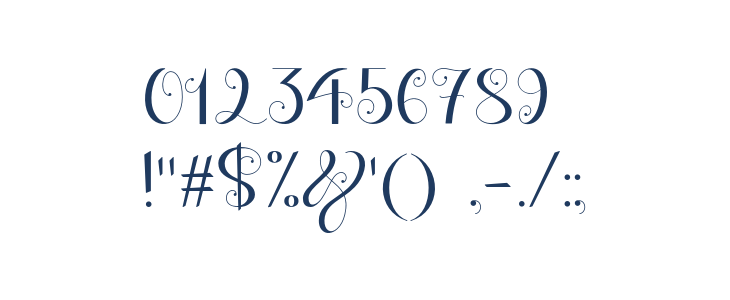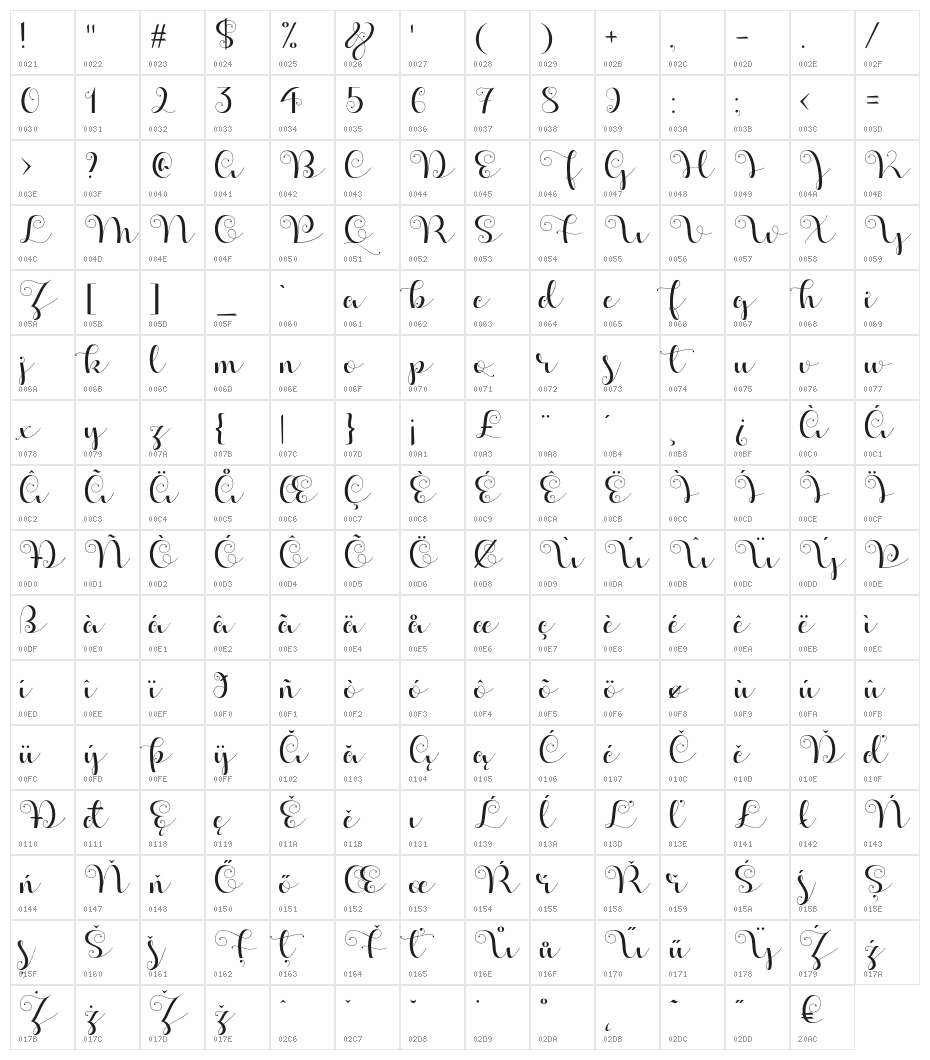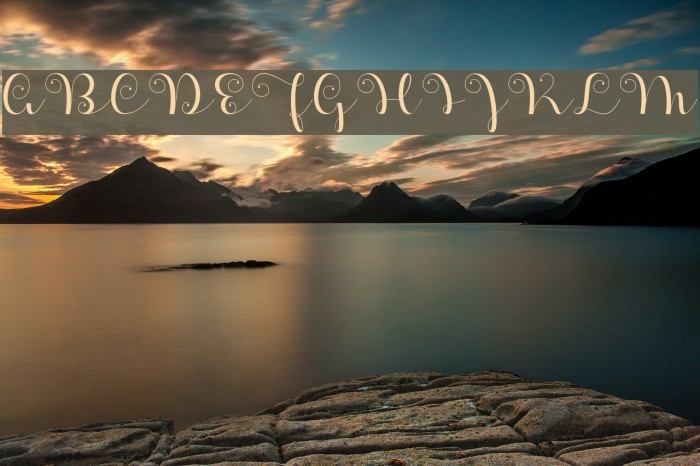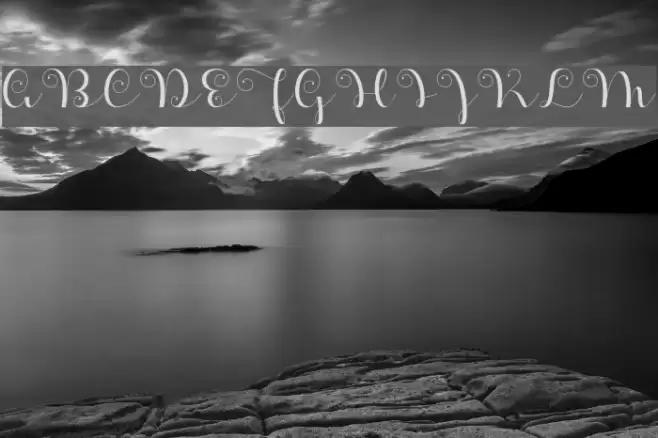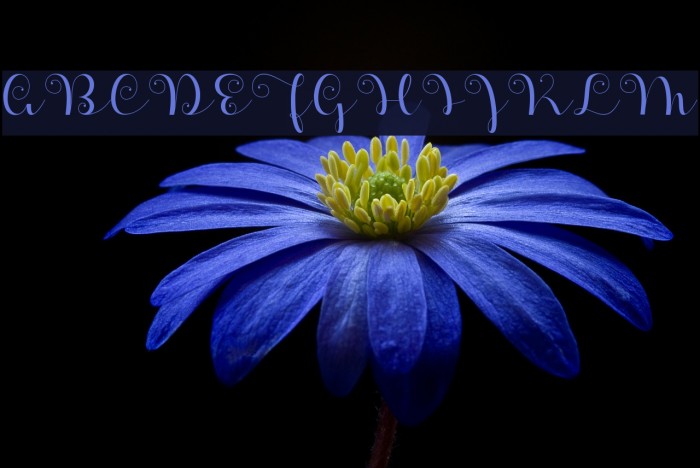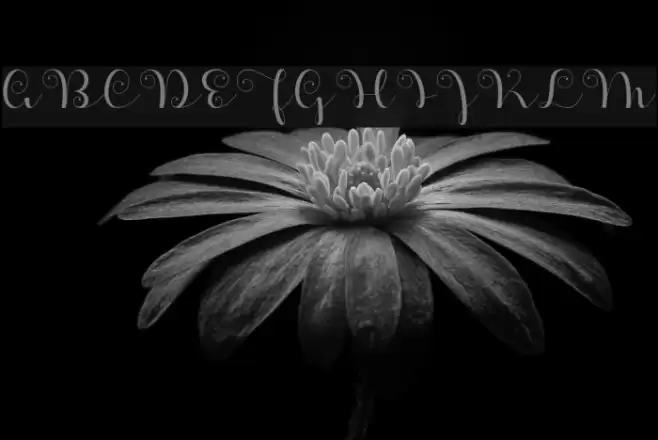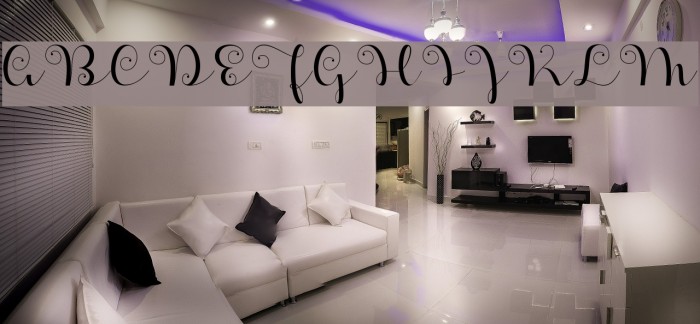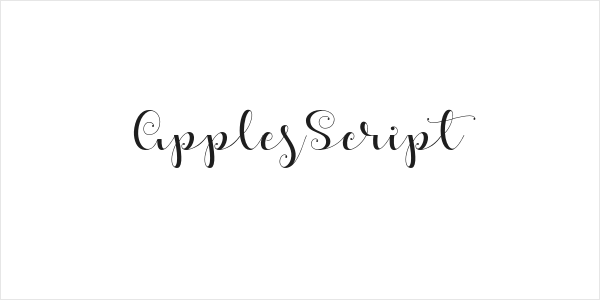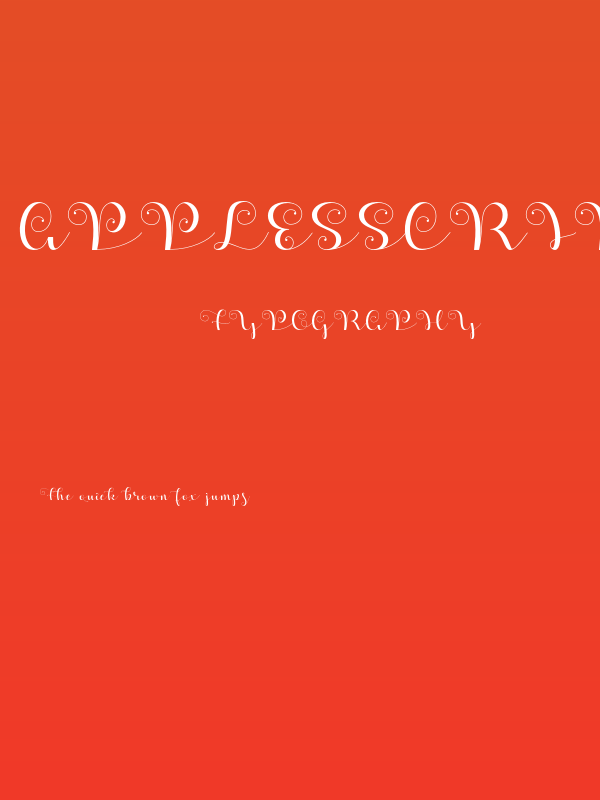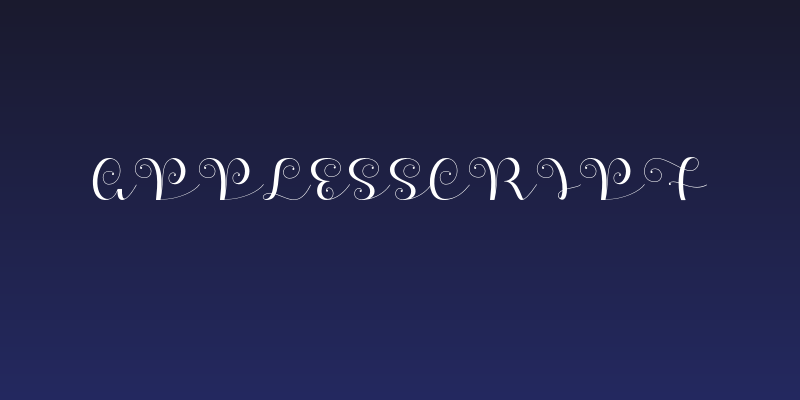
ApplesScript Font
ApplesScript Description
This font features an elegant and decorative script style with intricate swirls and flourishes. The uppercase letters are particularly ornate, with loops and curls that give a sense of movement and grace. The lowercase letters maintain this decorative style but are slightly more restrained, ensuring readability. The numerals are consistent with the overall design, featuring subtle curves and embellishments. Special characters are also included, each with unique flourishes that match the font's aesthetic. This font is ideal for projects that require a touch of sophistication and elegance.
| Proposed Projects | Ideal for wedding invitations, elegant branding, greeting cards, and decorative headlines. |